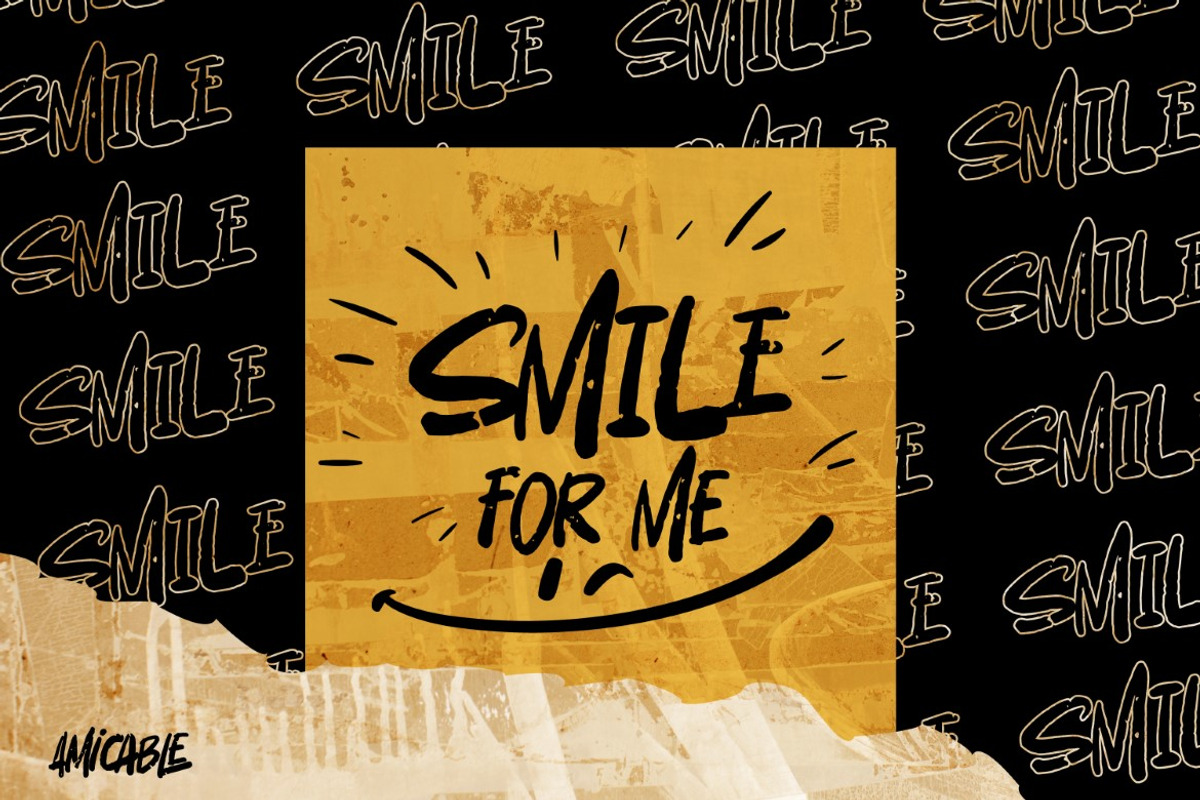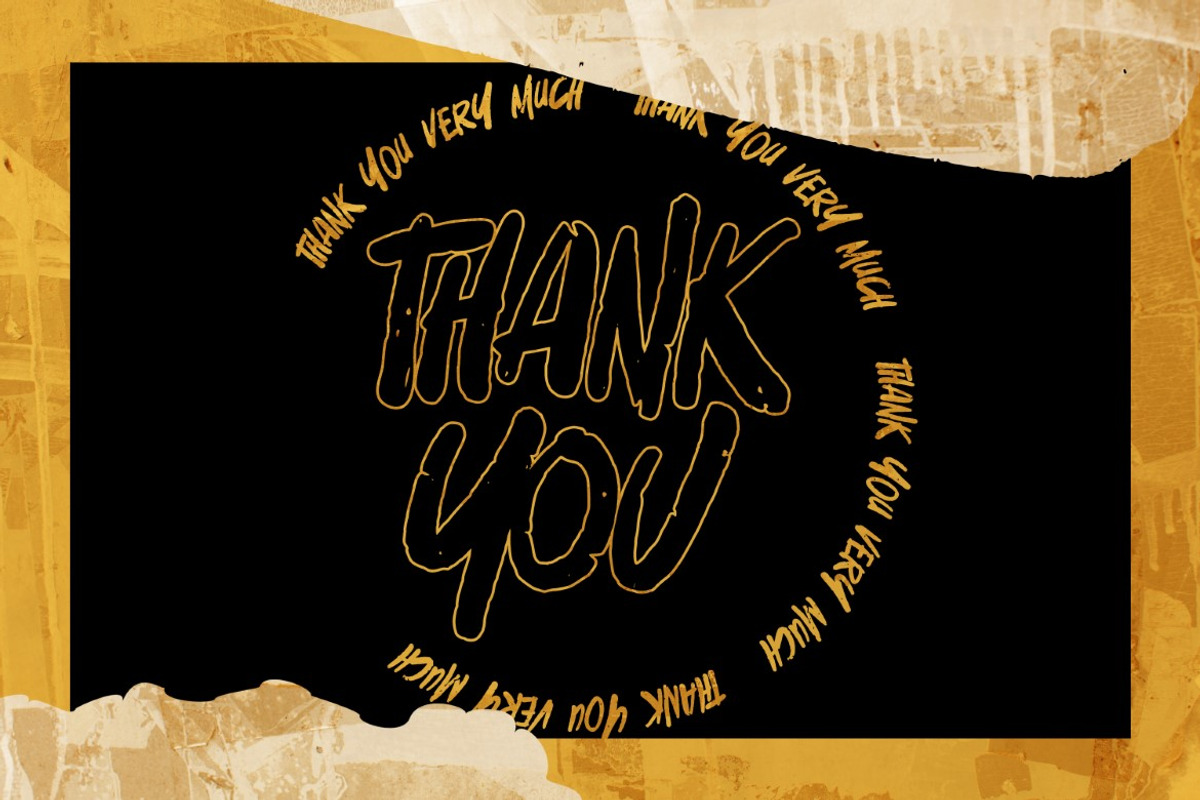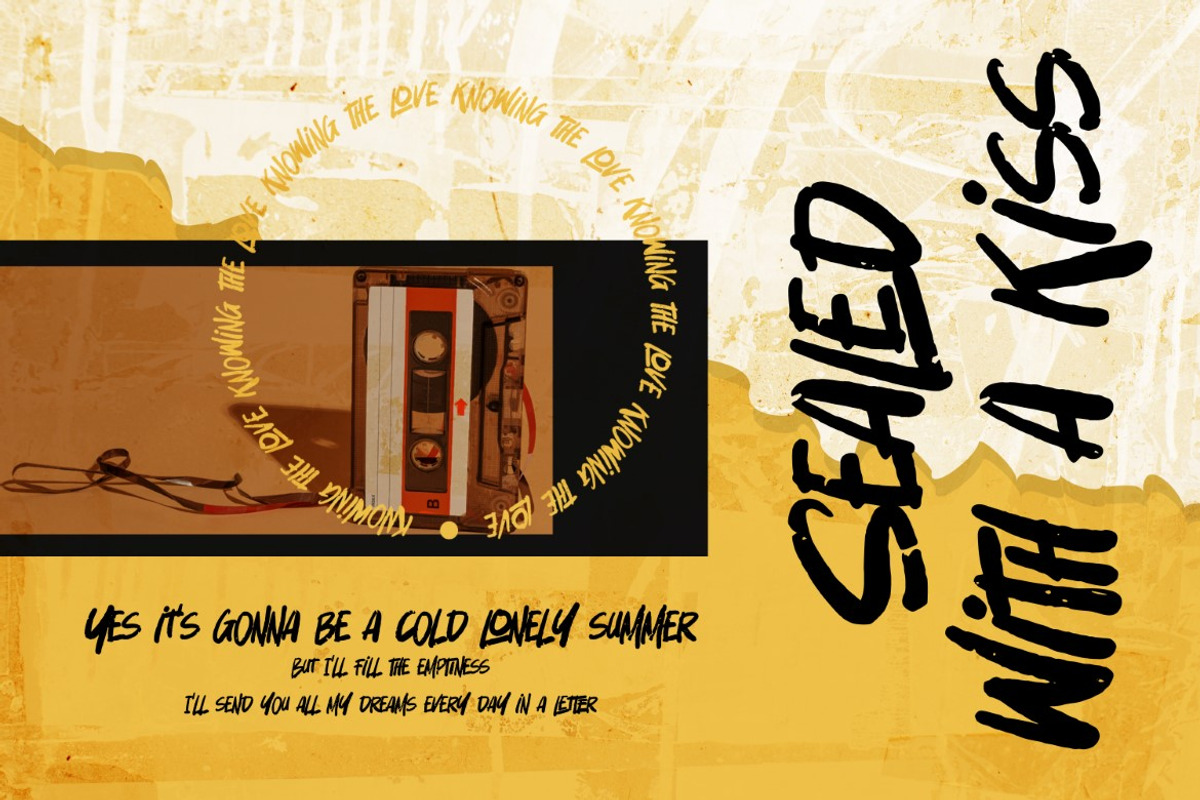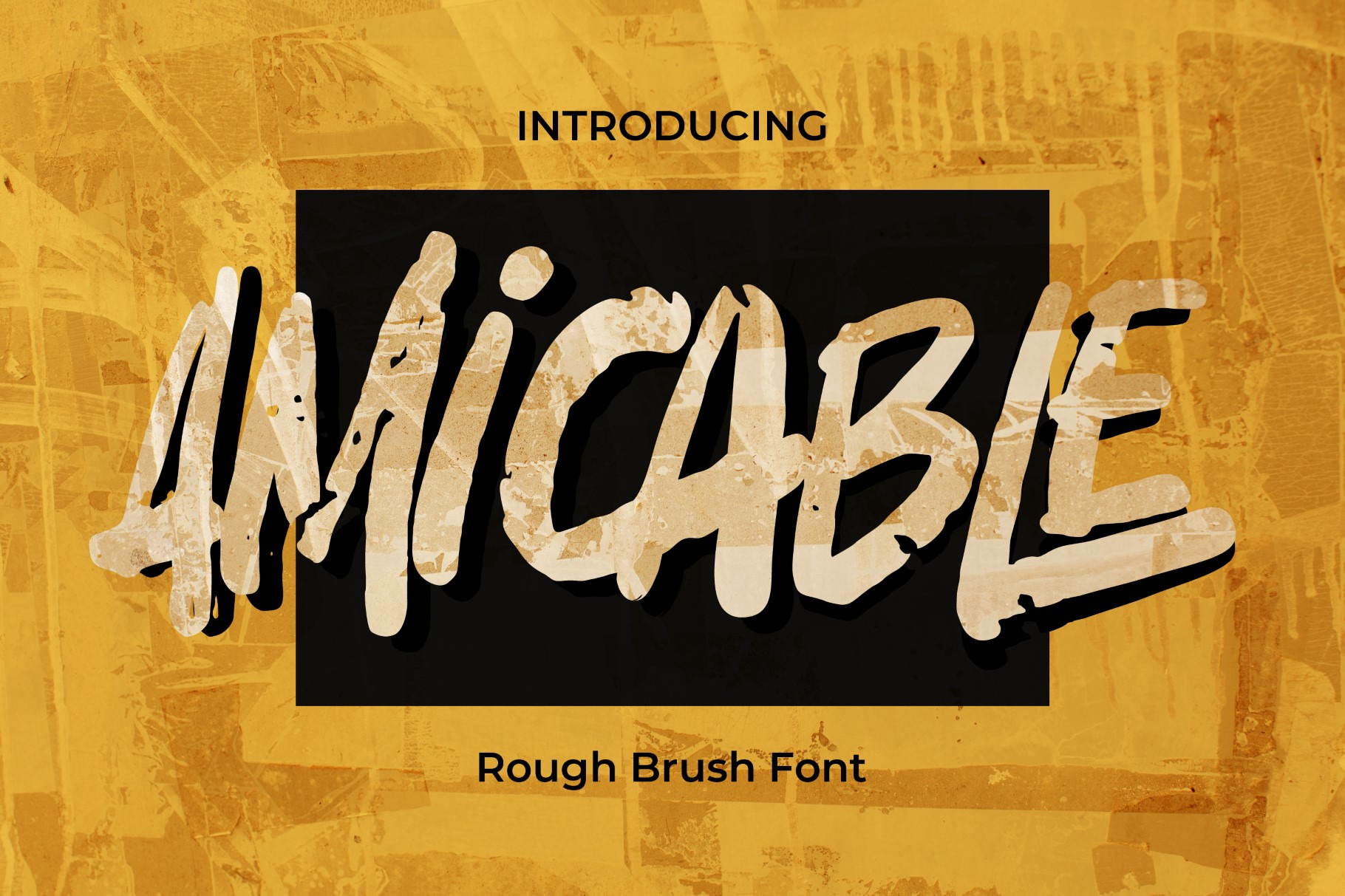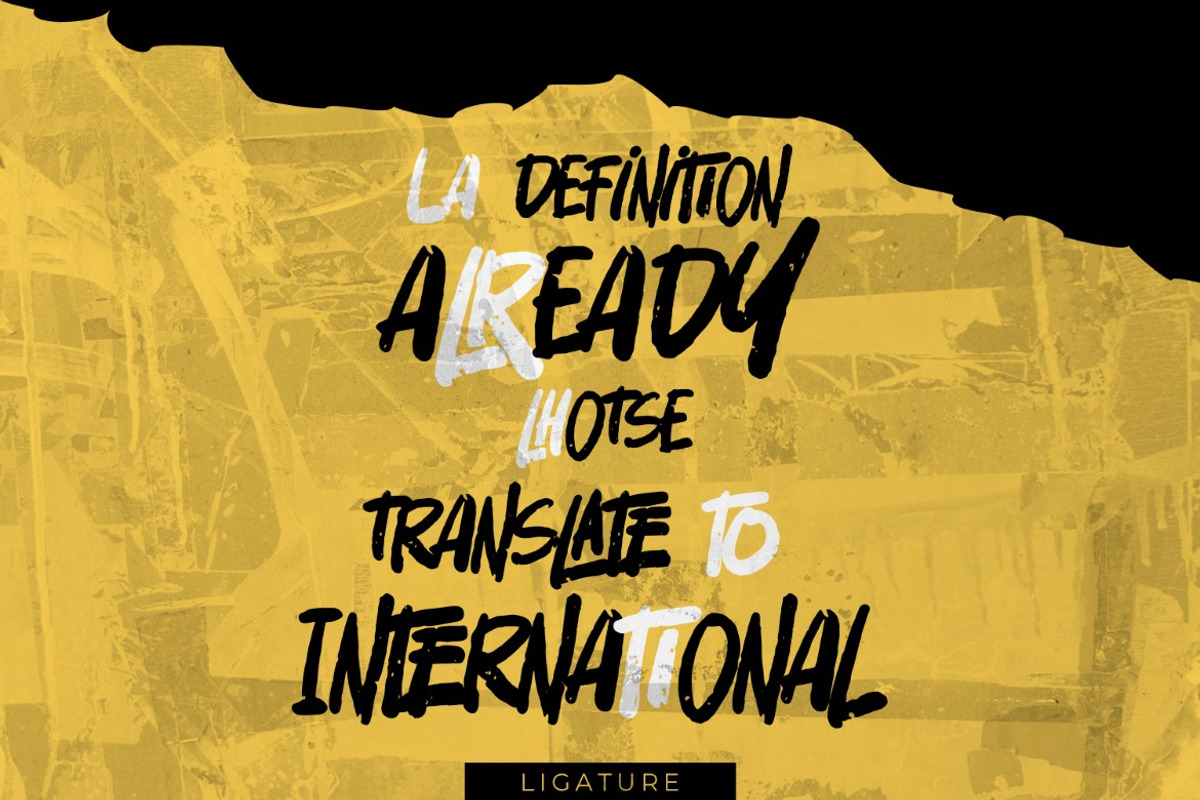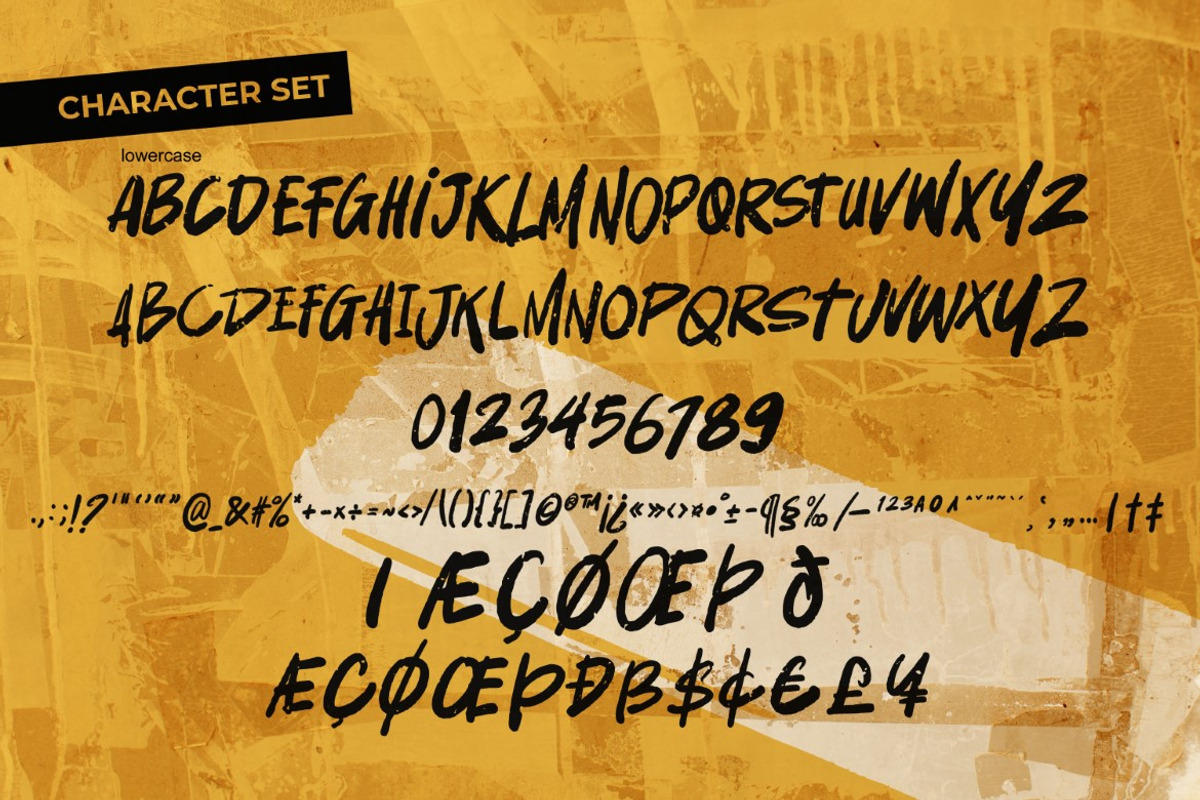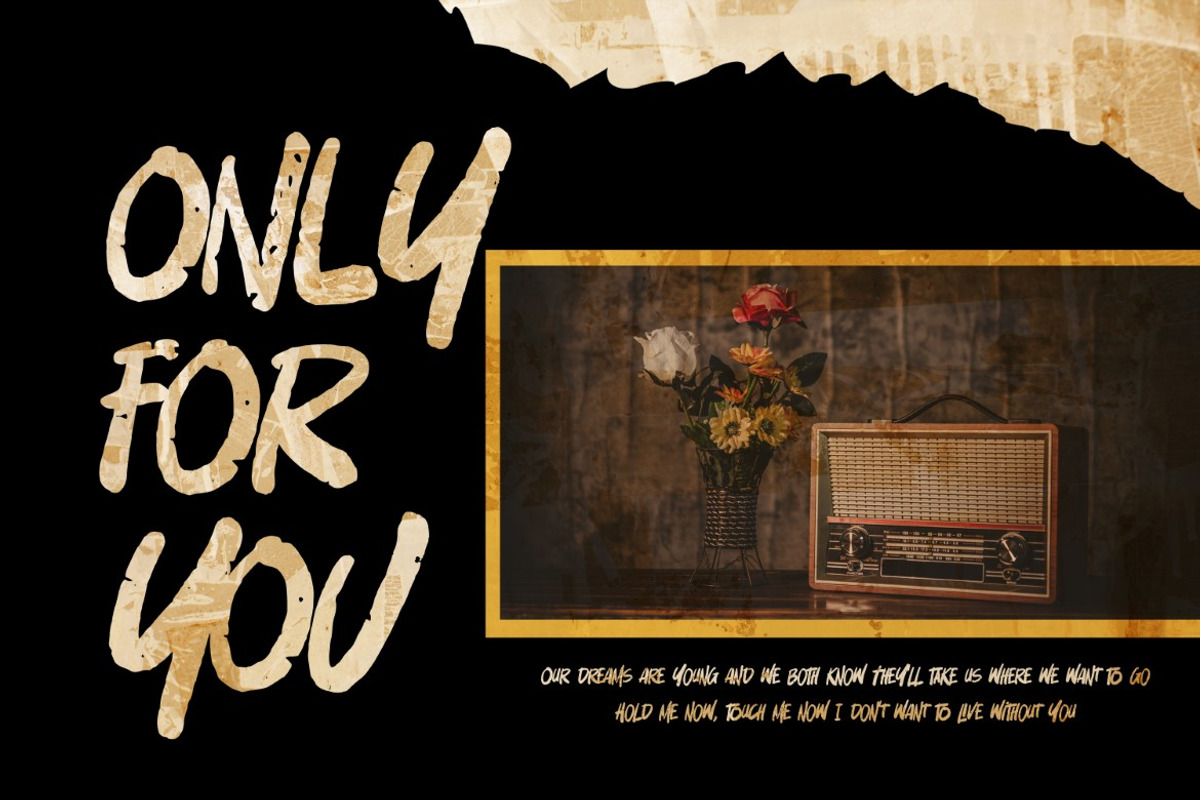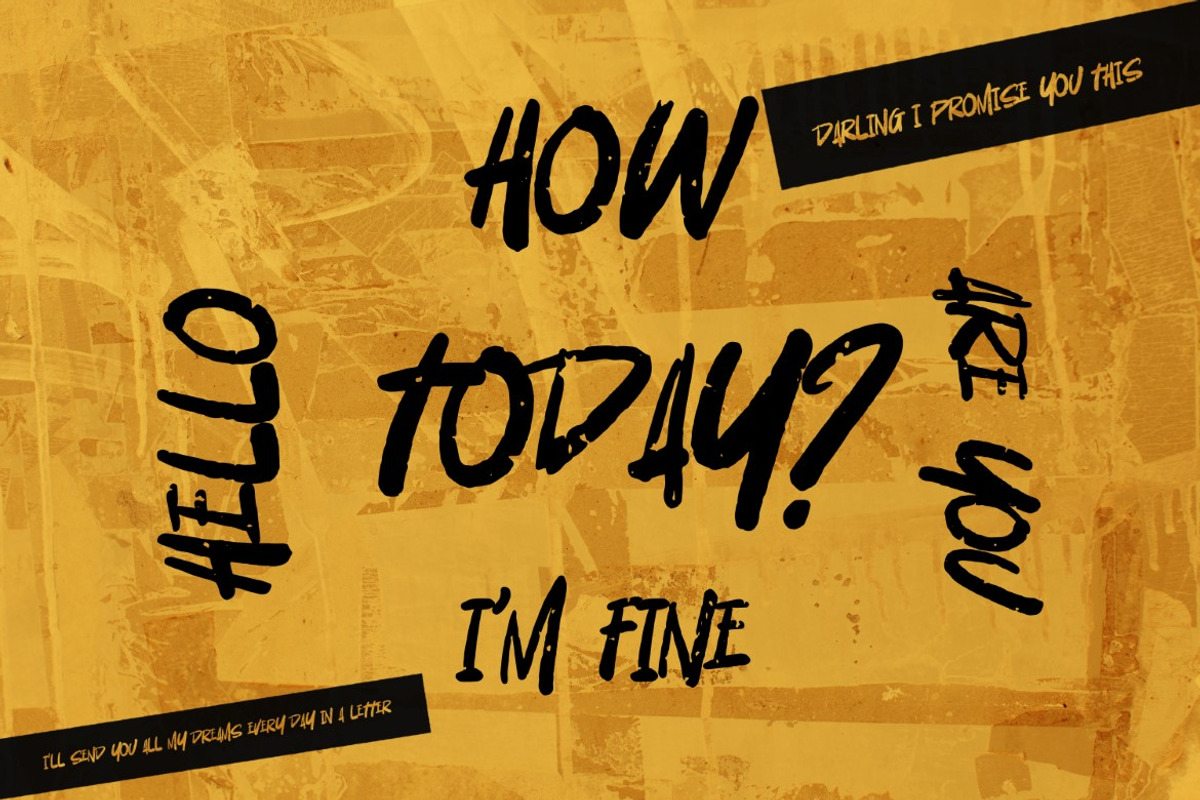
Amicable Handwritten Brush font
Introducing Amicable is a handwritten brush that is written casually and quickly. Letters are made with brushes on Procreate. Then crafted carefully drawn into vector format. That is why Amicable has charming, authentic and relaxed characteristic more natural look to your text with a more natural look to your text. You can activate Ligature OpenType panel to make these two styles. It also has many alternatives and underlines that make your text and design more interesting.Amicable is perfect for homeware designs,branding projects, Logo design, Quotes product packaging